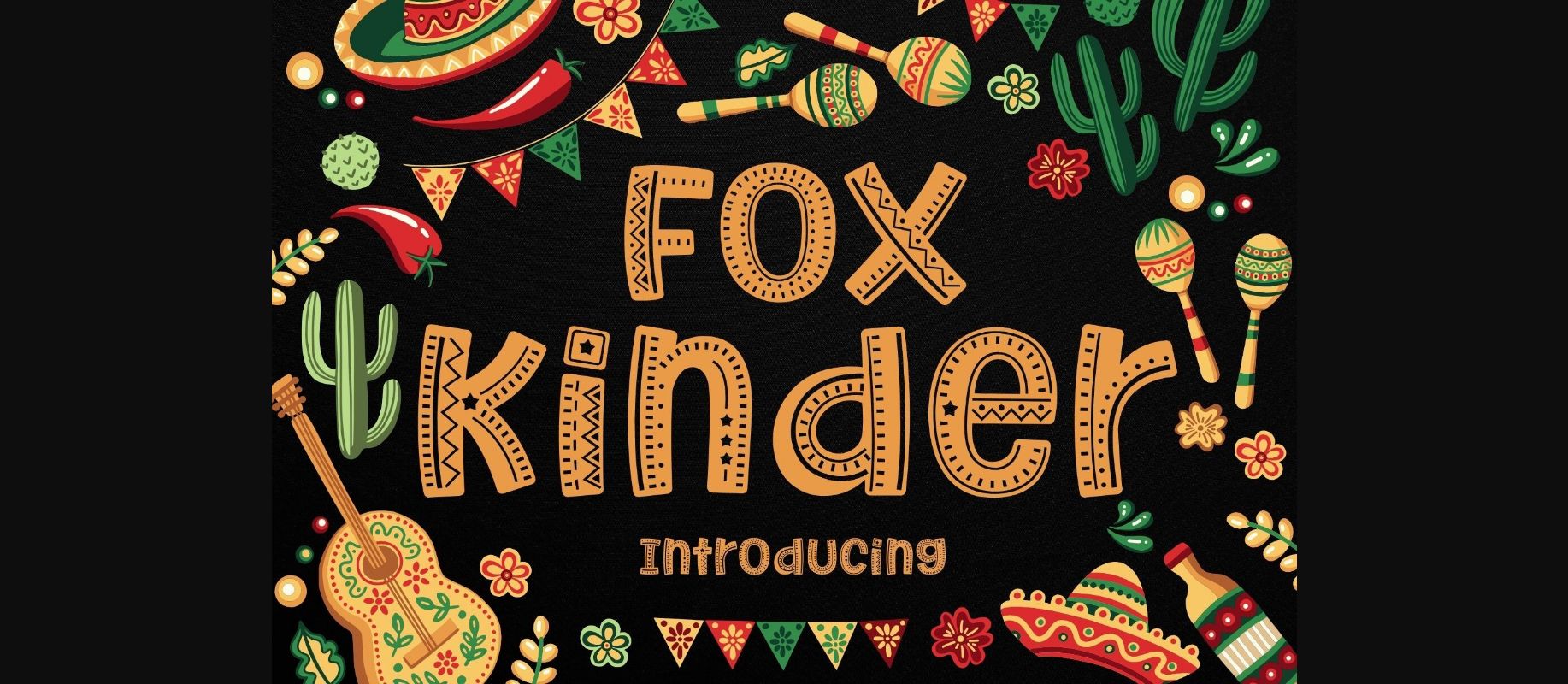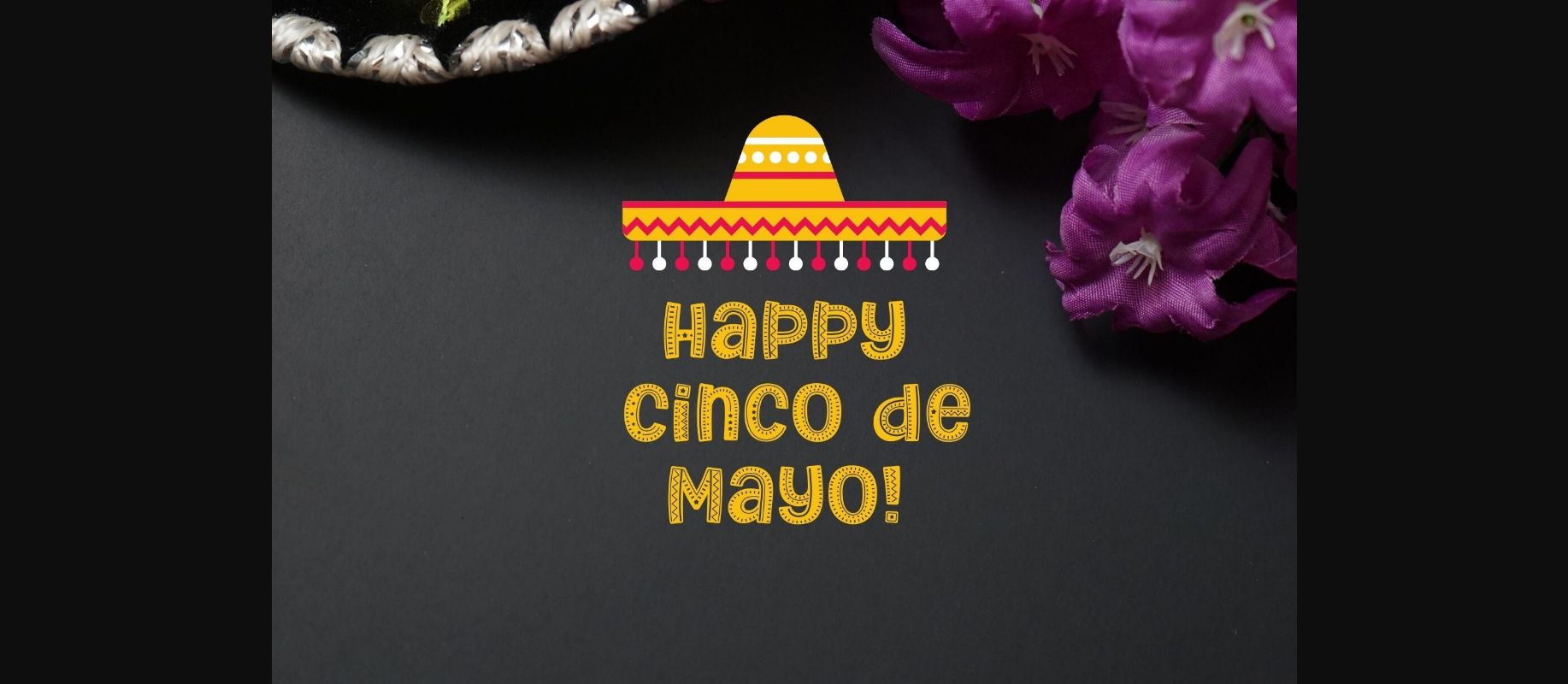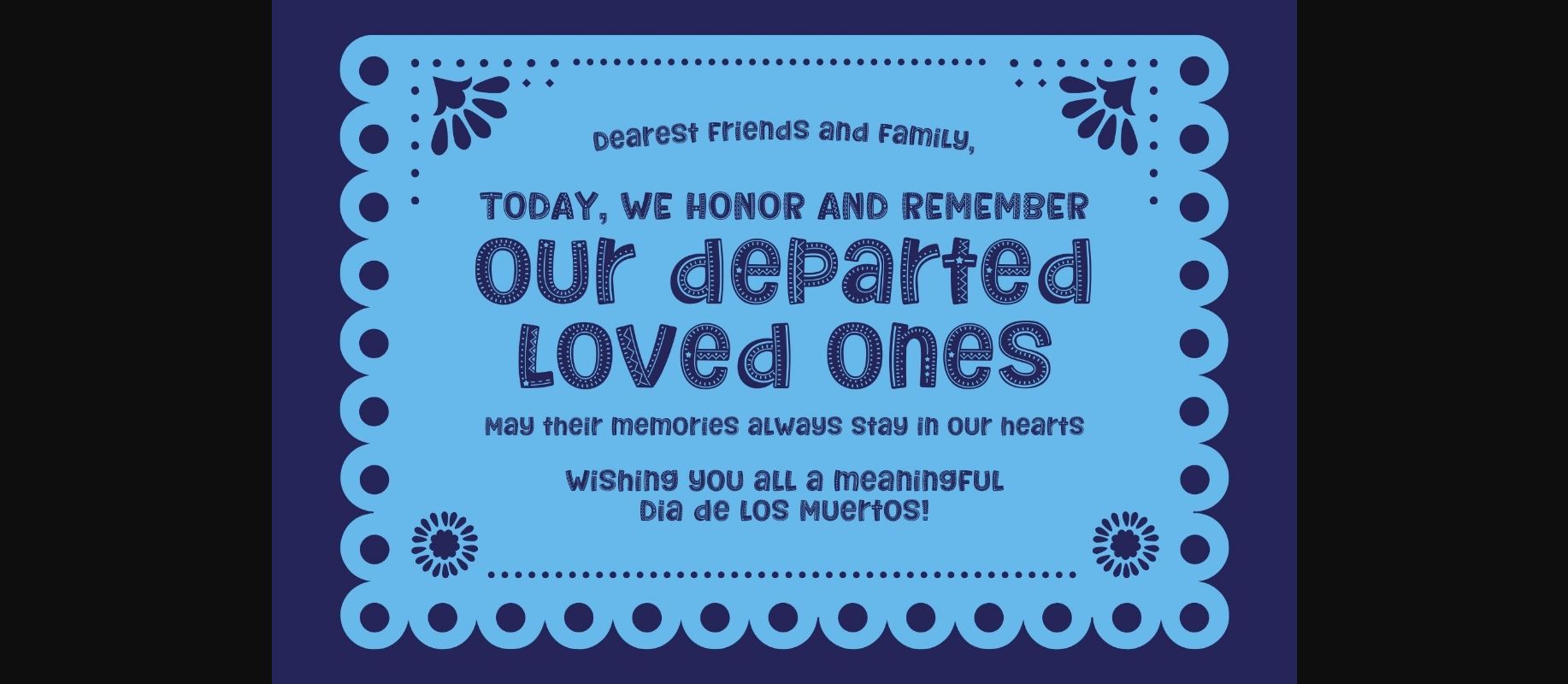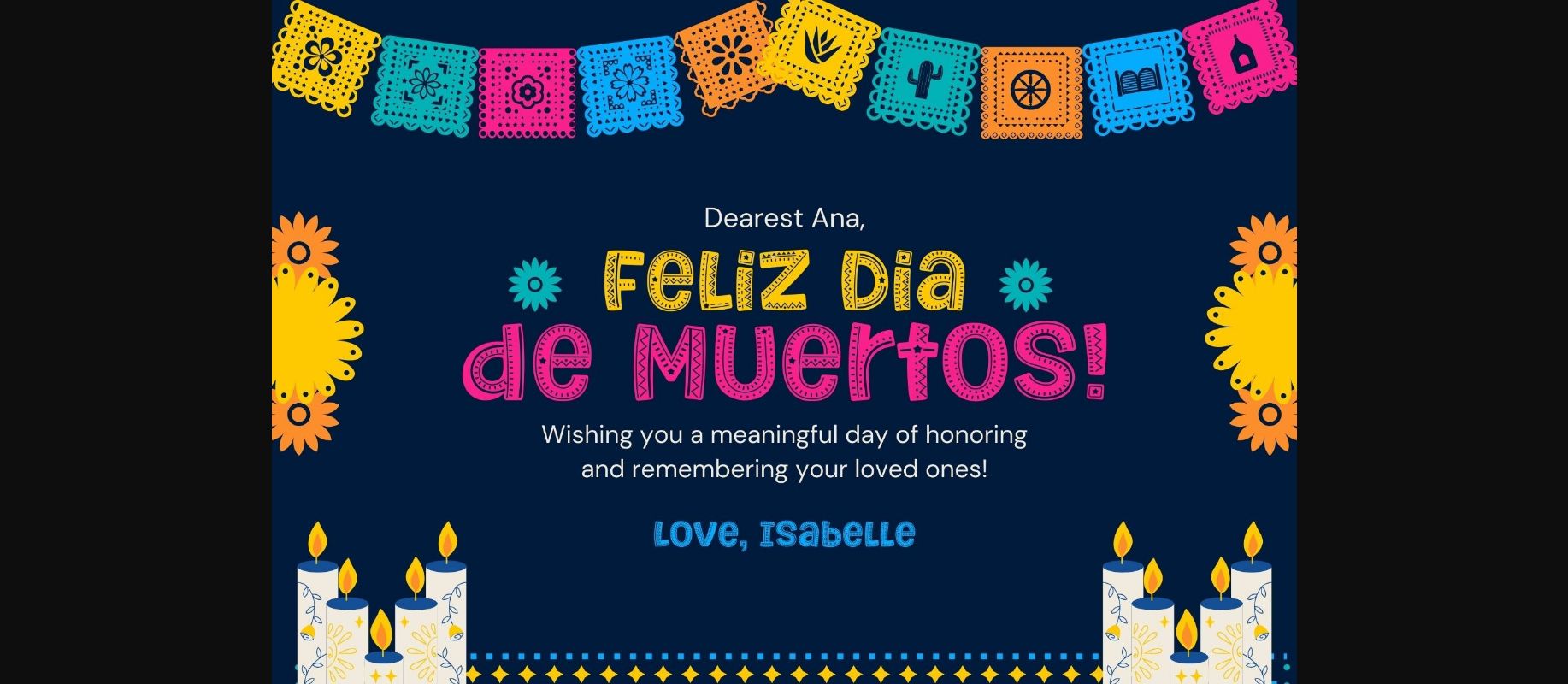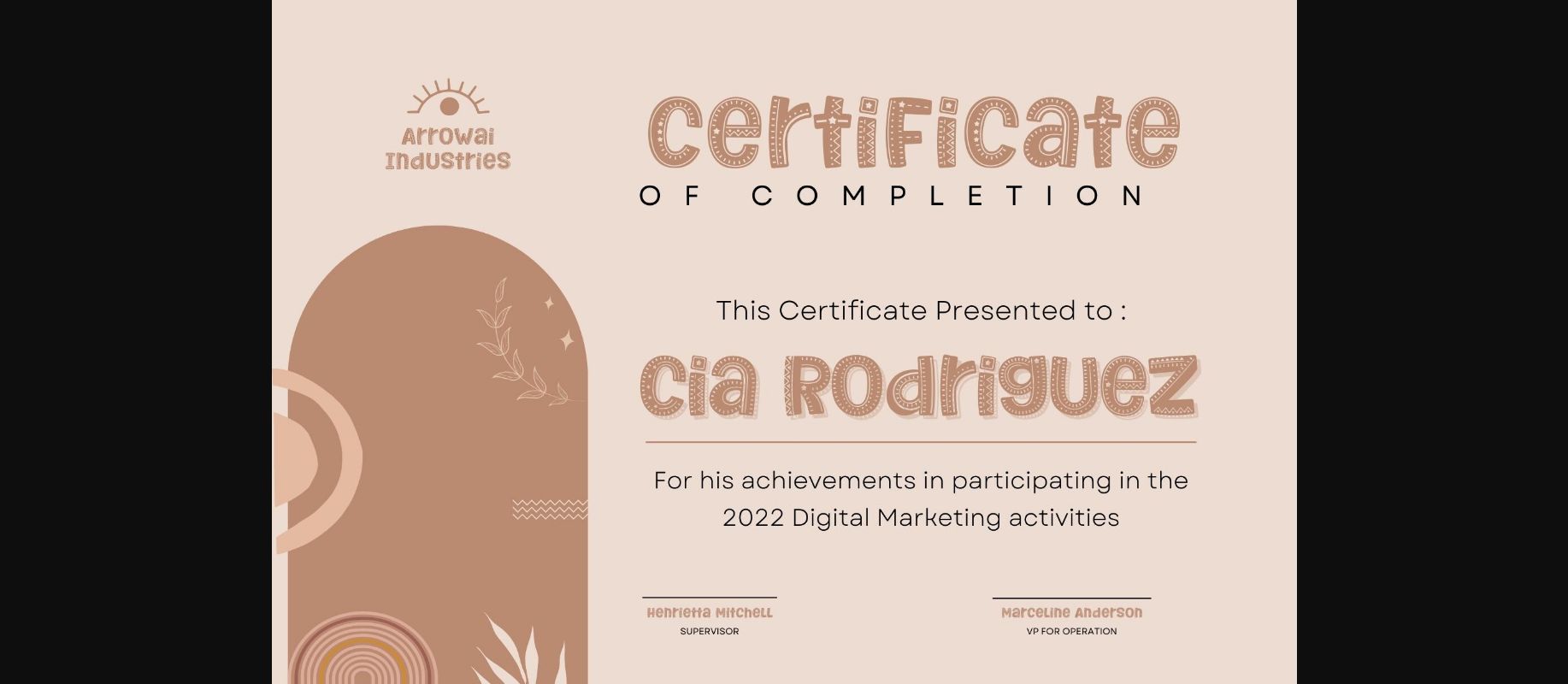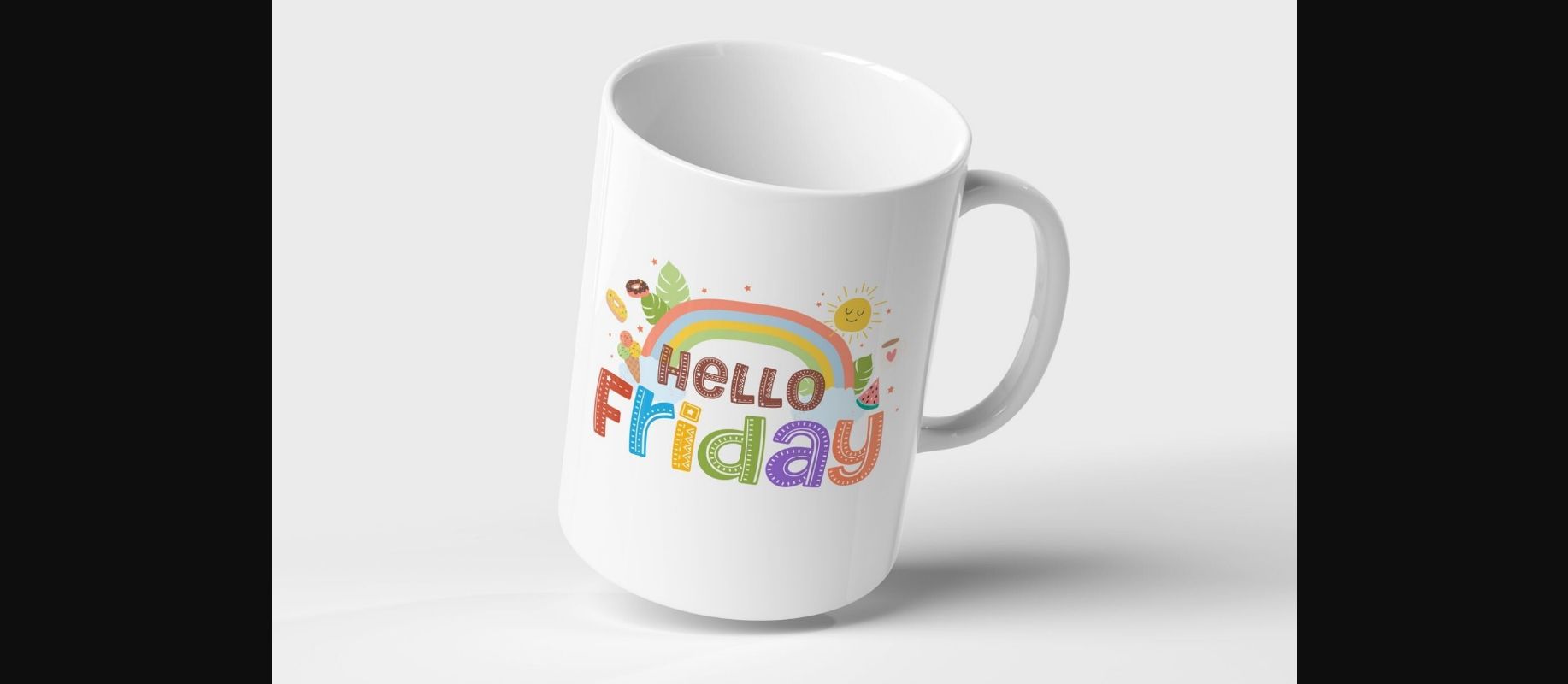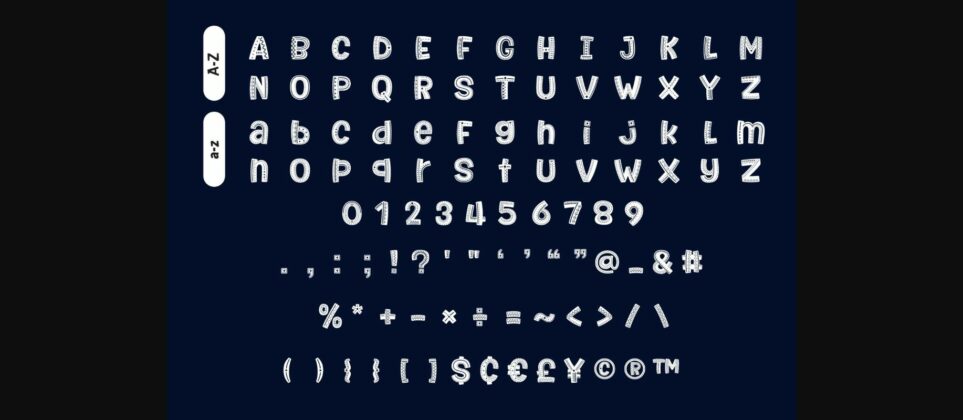
Fox Kinder Font
About Fox Kinder Font
Fox Kinder is a decorative font that is cute, bright, and fun. This font would be well-suited for children’s books, playful branding, or any creative project that requires a touch of whimsy and charm. Add this beautiful decorative font to each of your creative ideas, and notice how it makes them stand out!